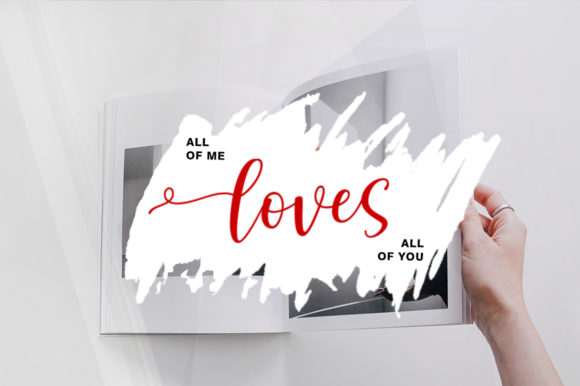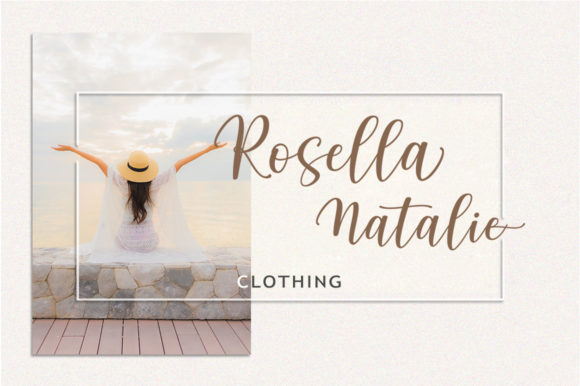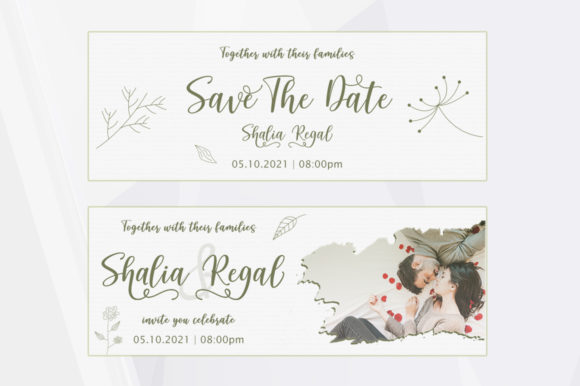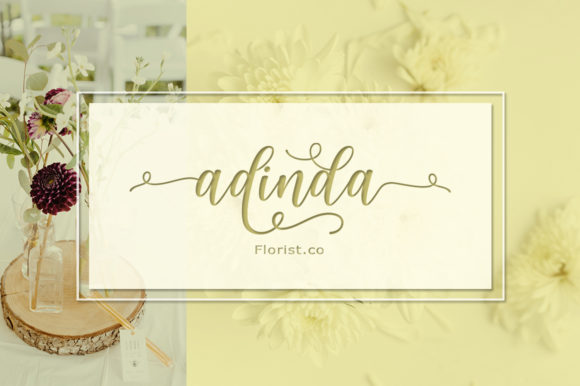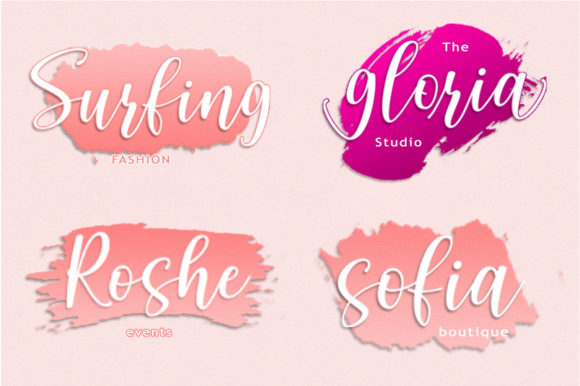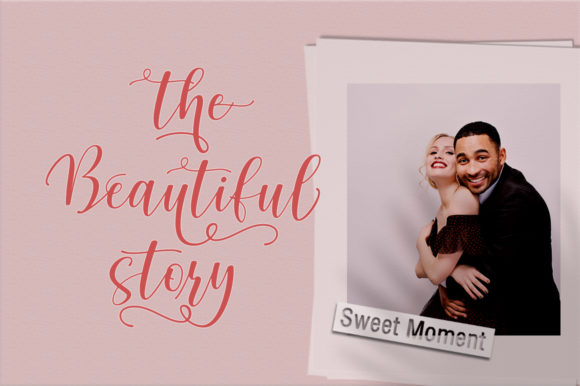
Baby Dualistic Font: Elevate Your Designs with Elegance and Sophistication
In the world of typography, fonts play a crucial role in conveying the tone and personality of a design. For designers and crafters seeking a beautiful script font that exudes elegance and sophistication, Baby Dualistic is an excellent choice. This stunning font features stylish and lovely characters, making it perfect for a wide range of design applications.
What Makes Baby Dualistic Font Stand Out?
Baby Dualistic is a beautiful script font that boasts a unique and captivating style. Its elegant characters are designed to add a touch of sophistication to any design, making it ideal for:
• Branding: Create a lasting impression with your brand’s identity
• Product packaging: Make your products stand out on store shelves
• Invitations: Design beautiful and memorable invitations for special occasions
• Quotes: Add a touch of elegance to your inspirational quotes
• T-shirts: Create stylish and eye-catching apparel
• Labels: Design labels that reflect your brand’s personality
• Posters: Create visually stunning posters that grab attention
• Logos: Craft a unique and memorable logo for your brand
Key Features of Baby Dualistic Font
Baby Dualistic font comes with several key features that make it a versatile and user-friendly choice:
• PUA Encoded: This font is PUA (Private Use Area) encoded, which means you can access all the glyphs and swashes with ease. This feature allows you to create stunning designs with a wide range of characters and ornaments.
• Stylish and Lovely Characters: The font features beautifully designed characters that are both elegant and playful. Each character is crafted to ensure that your designs stand out.
• Wide Range of Applications: As mentioned earlier, Baby Dualistic font is suitable for a variety of design applications, making it a great addition to any designer’s toolkit.
Benefits of Using Baby Dualistic Font
By incorporating Baby Dualistic font into your designs, you can enjoy several benefits:
• Elegance and Sophistication: The font’s elegant characters will add a touch of sophistication to your designs, making them more visually appealing.
• Versatility: With its PUA encoding and wide range of characters, Baby Dualistic font offers endless possibilities for creative expression.
• Time-Saving: The font’s ease of use and extensive features will save you time and effort in the design process.
Tips for Using Baby Dualistic Font
To get the most out of Baby Dualistic font, consider the following tips:
• Experiment with Different Sizes: Play around with different font sizes to achieve the desired effect. Larger sizes can make a bold statement, while smaller sizes can add a touch of elegance.
• Pair with Other Fonts: Combine Baby Dualistic font with other fonts to create a unique and visually appealing design.
• Use Swashes and Glyphs: Take advantage of the font’s PUA encoding to access a wide range of swashes and glyphs. These can add a decorative touch to your designs.
Baby Dualistic font is a beautiful script font that offers elegance, sophistication, and versatility. Its PUA encoding, stylish characters, and wide range of applications make it an excellent choice for designers and crafters. Whether you’re creating branding materials, product packaging, or social media graphics, Baby Dualistic font is sure to elevate your designs to the next level. With its ease of use and extensive features, this font is a valuable addition to any designer’s toolkit.